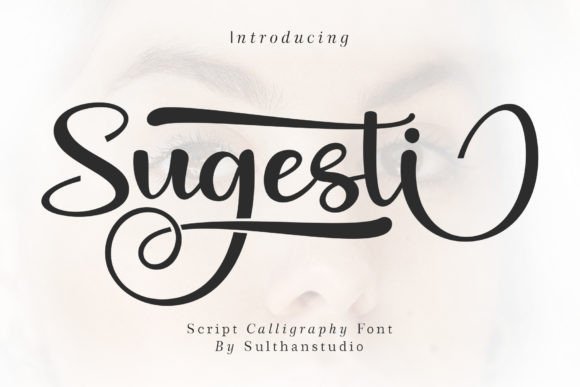
Meet Sugesti Font, the captivating script font that will add a touch of elegance and charm to your creative projects. Crafted with precision by Sulthan Studio, Sugesti embodies sophistication and uniqueness, making it the perfect choice for expressing your heartfelt emotions.
Indulge in the beauty of Sugesti's graceful curves and delicate lines, which flow effortlessly to create a visually stunning masterpiece. Its bold and confident strokes command attention, while the intricate details add a touch of whimsy and playfulness. With Sugesti, your words will come alive, resonating with a heartfelt authenticity that will leave a lasting impression.
Whether you're penning love letters, designing wedding invitations, or creating eye-catching titles, Sugesti is your ultimate companion. Its versatility extends to t-shirts, letterheads, signage, labels, news, posters, badges, and more. Let Sugesti elevate your creative endeavors and transform them into works of art.
Unleash the limitless possibilities of Sugesti, a font that speaks volumes with its captivating presence. Its PUA encoding makes accessing glyphs and swashes a breeze, ensuring seamless integration into your designs. Experience the joy of effortless creativity as you watch your words dance across the page, imbued with the charm and allure of Sugesti.
Embrace the beauty of Sugesti, the font that captures the essence of love, romance, and heartfelt expression. Let your imagination soar as you explore the endless possibilities it offers. Download Sugesti today and embark on a creative journey that will leave your audience spellbound.